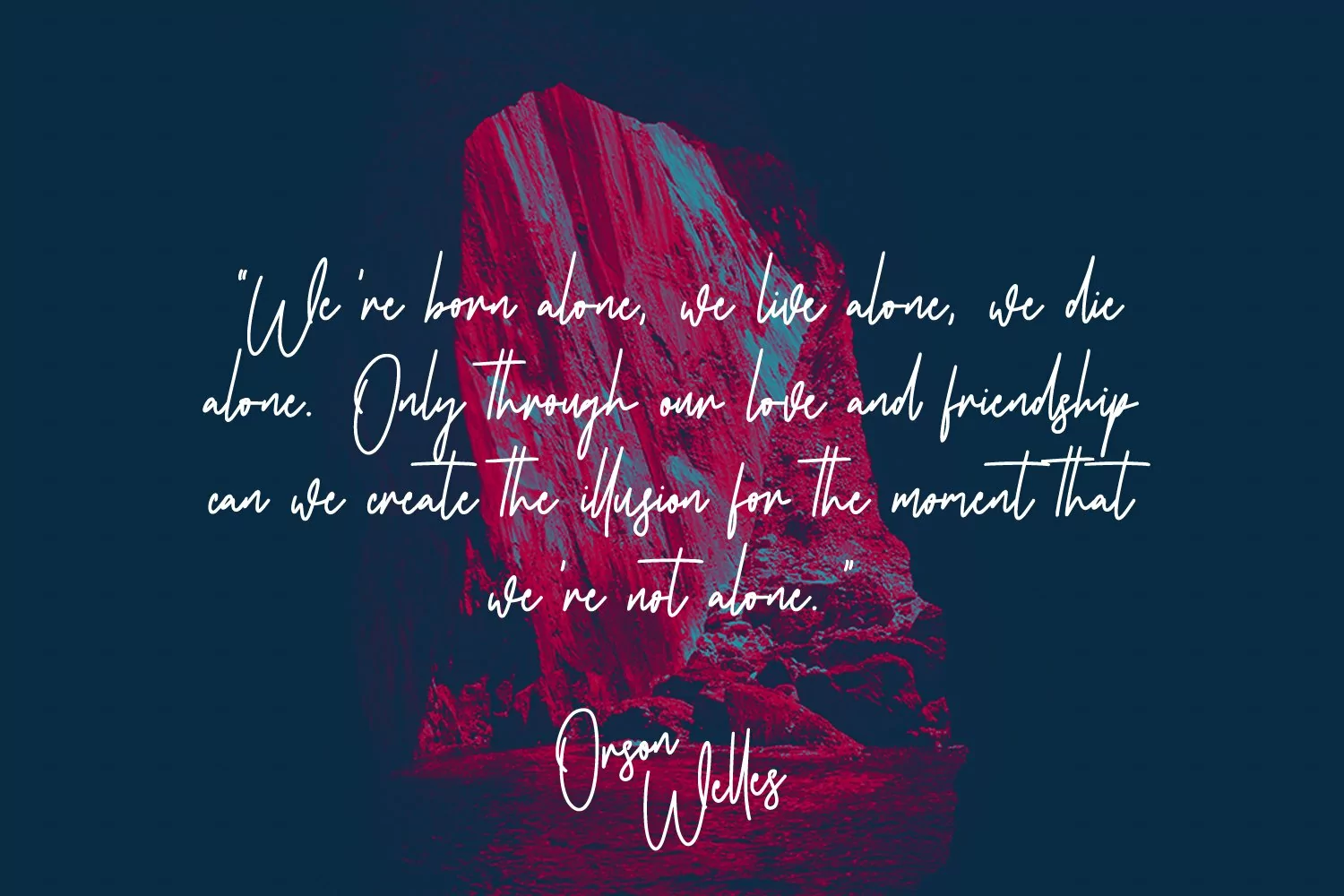
Jawstone is casual signature script font, with clean mono-line stroke, slanted and fun character. It has Opentype features ligatures of character, To give you an extra creative work. Jawstone font support multilingual more than 100+ language. This font is good for logo design, Social media, Movie Titles, Books Titles, a short text even a long text letter and good for your secondary text font with sans or serif. Make a stunning work with Jawstone font.